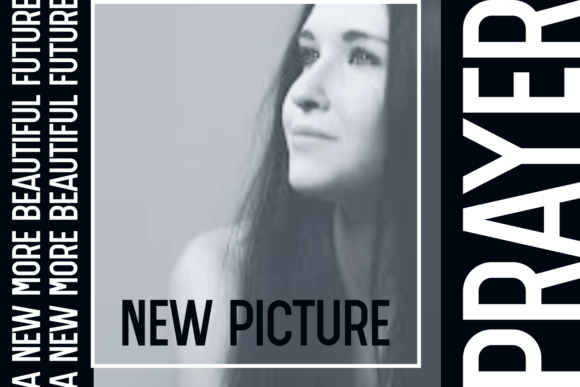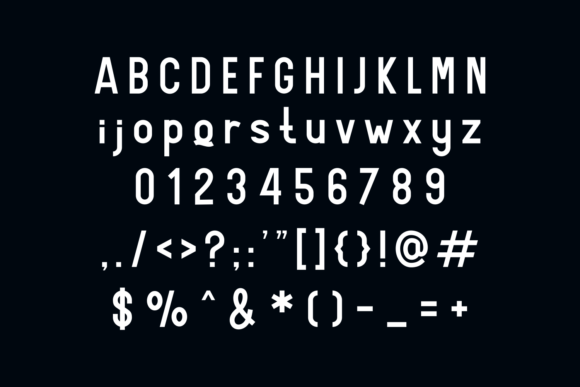
Discover the Timeless Elegance of Corlus Font: Elevate Your Designs with a Classic Sans Serif
In the world of typography, few fonts manage to stand the test of time, and Corlus is one of them. This classic sans serif font has been a staple in the design community for its clean lines, versatility, and unparalleled readability. Whether you’re a seasoned designer or a crafty DIY enthusiast, Corlus is an incredible asset to your font library, capable of elevating any creation to new heights.
The Characteristics of Corlus Font
Corlus boasts a range of characteristics that make it an ideal choice for a wide array of design projects. Its sans serif design ensures a sleek and modern look, while its classic undertones provide a sense of timelessness and sophistication. The font’s clean lines and simple shapes make it highly legible, even at smaller sizes, which is perfect for body text or for use in digital media.
One of the standout features of Corlus is its versatility. It can seamlessly transition from being a headline in a magazine to a body font in a website, or even serve as a stylish addition to your social media graphics. This adaptability is due in large part to its neutral appearance, which allows it to complement a wide range of design aesthetics without overpowering them.
Why Choose Corlus for Your Designs?
There are several compelling reasons to make Corlus a part of your design toolkit:
- Universal Appeal: Corlus’s classic design ensures it never goes out of style. Its timeless appeal means your designs will remain current for years to come.
- High Readability: The font’s clear and simple design makes it easy to read, even for extended periods. This is particularly beneficial for digital content and long-form text.
- Versatility: From digital media to print, Corlus performs exceptionally well across various platforms and mediums.
- Professional Look: Incorporating Corlus into your designs instantly lends them a professional and polished look, which can be crucial for branding and marketing materials.
Using Corlus in Different Design Projects
The applications of Corlus are vast and varied. Here are a few ideas to get you started:
- Branding and Logos: Use Corlus to create a strong, recognizable brand identity. Its clean lines and classic feel make it perfect for logos that need to convey professionalism and reliability.
- Web Design: Corlus is well-suited for web design, offering a pleasant reading experience for users. It’s ideal for headings, body text, and even UI elements.
- Print Media: Whether you’re designing a brochure, a magazine, or a book, Corlus provides a crisp and clear text that enhances readability.
- Social Media Graphics: Elevate your social media presence with stylish graphics featuring Corlus. It’s perfect for creating engaging posts, stories, and banners.
Tips for Maximizing the Impact of Corlus
To get the most out of Corlus, consider the following tips:
- Experiment with Sizes: While Corlus is highly legible at smaller sizes, don’t be afraid to experiment with larger sizes for headings and titles to create visual impact.
- Play with Colors: Corlus works well with a variety of colors. Try contrasting text colors against your background to make your text pop.
- Combine with Other Fonts: While Corlus is versatile on its own, pairing it with complementary fonts can add depth and interest to your designs. Look for fonts that offer a contrast in style or weight.
Corlus font is more than just a typeface; it’s a design essential that can elevate your creations to new heights. Its classic sans serif design, combined with its versatility and readability, makes it an invaluable asset for designers and crafters alike. Whether you’re working on a professional project or a personal craft, incorporating Corlus into your design toolkit is sure to enhance your work and make it stand out.
So why wait? Discover the timeless elegance of Corlus today and transform your designs with the power of classic typography.